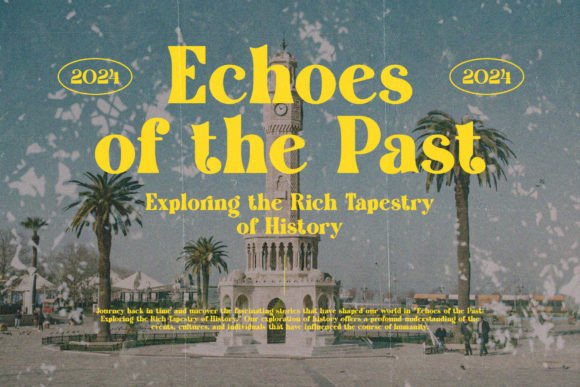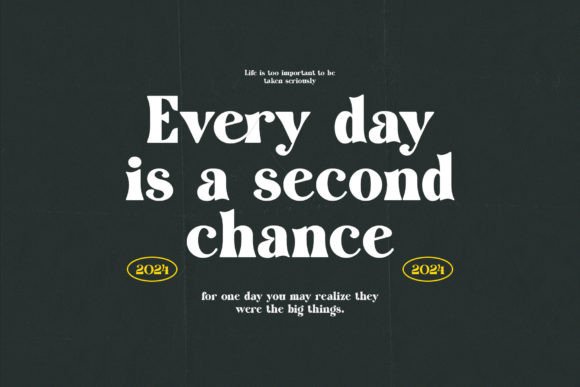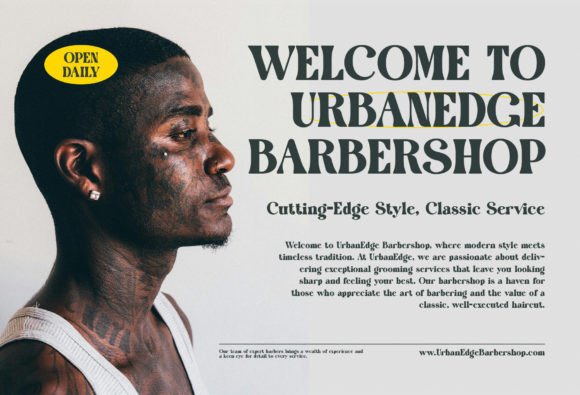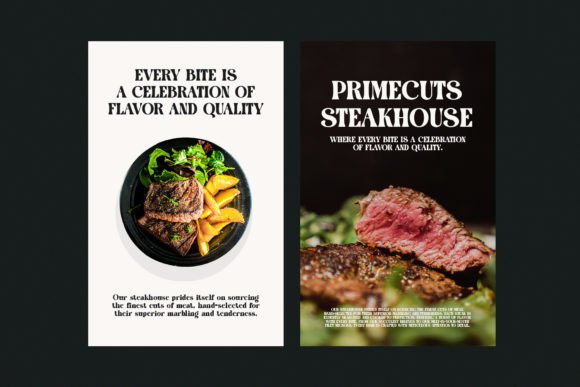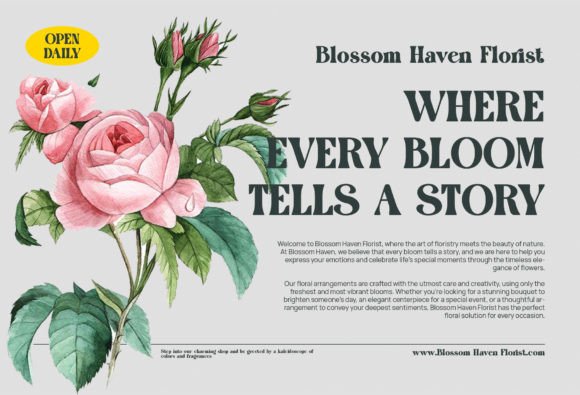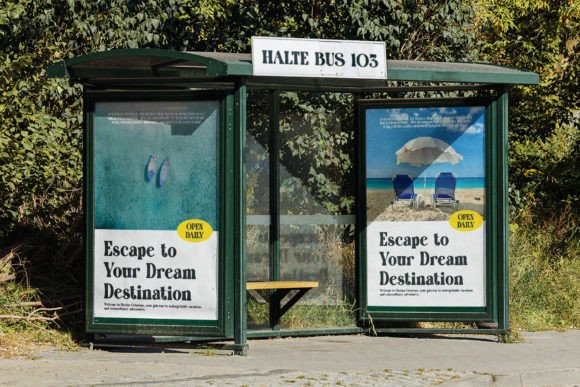
Introduction to Hugho Font
Have you ever found yourself staring at a blank page, desperately searching for the perfect design resource to bring your creative project to life? We’ve all been there. The blank page stares back, taunting us with its emptiness. But what if I told you that there’s a font out there that can elevate even the most mundane designs to new heights? Enter the Hugho Font, a bold and assertive serif font that’s sure to make your creations stand out.
Whether you’re working on a high-quality design for a client or a personal project, the Hugho Font has the potential to take your work to the next level. With its unique blend of style and sophistication, this font is a game-changer for designers. Plus, with its transparent background, you can easily layer it over any image or design element to create a stunning visual effect.
Key Features of Hugho Font
- Includes a wide range of characters, including uppercase and lowercase letters, numbers, and punctuation marks
- Unique, modern design with a clean and minimalist aesthetic
Honest Review: Hugho Font
I recently came across the Hugho Font and was excited to dive in and see what it had to offer. As a designer, I’m always on the lookout for high-quality design resources to elevate my creative projects.
One of the standout features of the Hugho Font is its unique and playful design style, making it perfect for projects that require a touch of whimsy. ✨ The font’s high-quality design ensures that it looks great on both light and dark backgrounds, and the transparent background option is a great touch.
Here are some of the things that I love about the Hugho Font:
- High-quality design that looks great on both light and dark backgrounds
- Unique and playful design style that’s perfect for creative projects
- Transparent background option for added flexibility
However, I did encounter some limitations with the Hugho Font:
- Some users may find the font’s design style too playful or distracting
Overall, I’m impressed with the Hugho Font and think it’s a great addition to any designer’s toolkit. It’s perfect for personal projects or small-scale commercial work, but may not be suitable for larger or more complex projects.
Hugho Font is a high-quality, free download font suitable for a variety of creative projects. This versatile design resource offers a transparent background, making it easy to incorporate into your designs.
Tips for Getting the Most Out of Hugho Font
For best results, use the Hugho Font in conjunction with other high-quality design elements. Experiment with different font sizes, colors, and combinations to create a unique look that suits your creative project.
The Hugho Font is suitable for a wide range of creative projects, including blog posts, social media graphics, and marketing materials. Its versatility and high-quality design make it a great addition to any design resource collection.